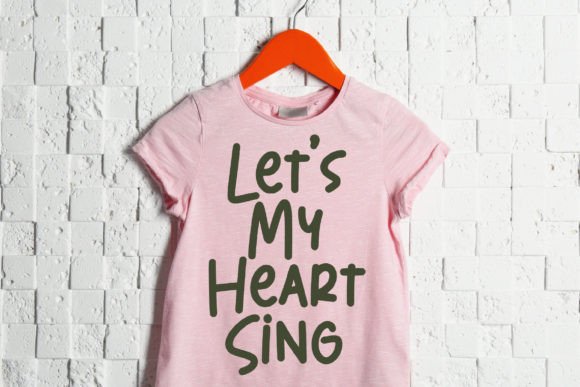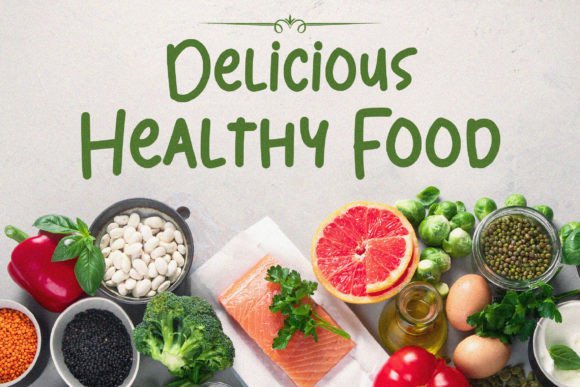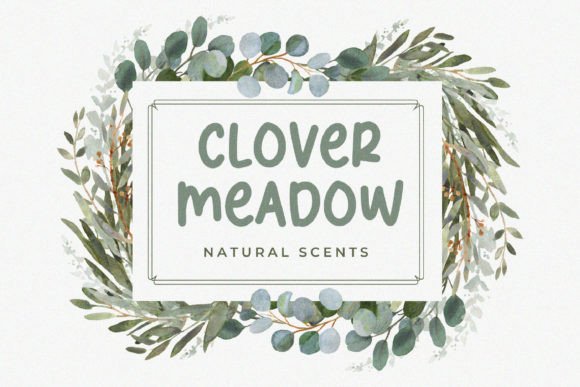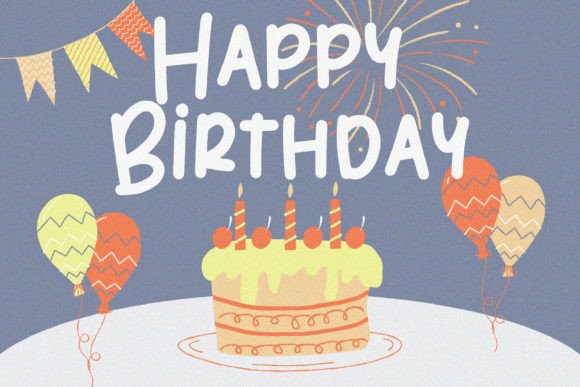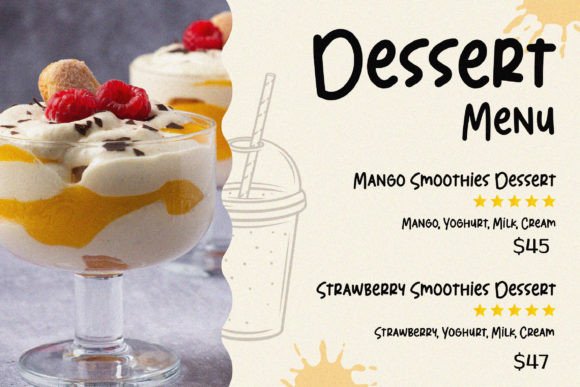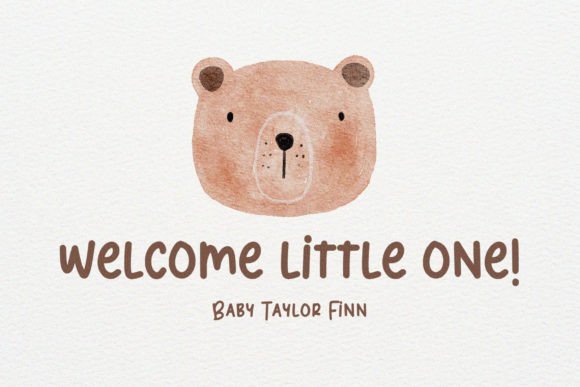
Bloomy Peachy Font: Add a Personal Touch to Your Designs
Are you looking for a font that can add a personal and realistic feel to your designs? Look no further than Bloomy Peachy, a cute and simple lettered quirky handwritten font. This charming font is perfect for designers and crafters who want to create authentic and engaging content for their audience.
What is Bloomy Peachy Font?
Bloomy Peachy is a unique and quirky handwritten font that is perfect for creating chalkboard quotes, teaching materials, and other designs that require a personal touch. Its authentic look and feel make it an ideal choice for designers who want to add a human element to their work.
Features of Bloomy Peachy Font
- Cute and Simple Lettering: Bloomy Peachy has a simple and adorable lettering style that is easy to read and understand.
- Quirky Handwritten Style: The font has a quirky handwritten style that gives it a personal and realistic feel.
- Perfect for Chalkboard Quotes: Bloomy Peachy is ideal for creating chalkboard quotes, teaching materials, and other designs that require a chalkboard look.
- Authentic Look: The font has an authentic look that will add a personal touch to your designs.
Benefits of Using Bloomy Peachy Font
Using Bloomy Peachy font in your designs can have several benefits. Here are a few:
- Adds a Personal Touch: The font adds a personal and realistic feel to your designs, making them more engaging and relatable.
- Easy to Read: Bloomy Peachy is easy to read and understand, making it perfect for creating content that needs to be communicated clearly.
- Versatile: The font can be used for a variety of designs, including chalkboard quotes, teaching materials, and more.
- Unique and Quirky: Bloomy Peachy has a unique and quirky style that will set your designs apart from others.
How to Use Bloomy Peachy Font
Using Bloomy Peachy font is easy. Here are a few ways you can use it in your designs:
- Chalkboard Quotes: Use Bloomy Peachy to create chalkboard quotes that are perfect for social media, blogs, and other online platforms.
- Teaching Materials: The font is ideal for creating teaching materials, such as worksheets, posters, and presentations.
- DIY Projects: Bloomy Peachy can be used for DIY projects, such as creating signs, labels, and other decorative items.
- Digital Designs: The font can be used for digital designs, such as creating graphics, logos, and branding materials.
Why Designers and Crafters Love Bloomy Peachy Font
Designers and crafters love Bloomy Peachy font for several reasons. Here are a few:
- High-Quality: Bloomy Peachy is a high-quality font that is perfect for creating professional-looking designs.
- Unique Style: The font has a unique and quirky style that sets it apart from other fonts.
Bloomy Peachy font is a cute and simple lettered quirky handwritten font that is perfect for designers and crafters. Its authentic look and feel make it an ideal choice for creating chalkboard quotes, teaching materials, and other designs that require a personal touch. With its easy-to-use style, high-quality design, and support for commercial use, Bloomy Peachy is a must-have font for any designer or crafter.